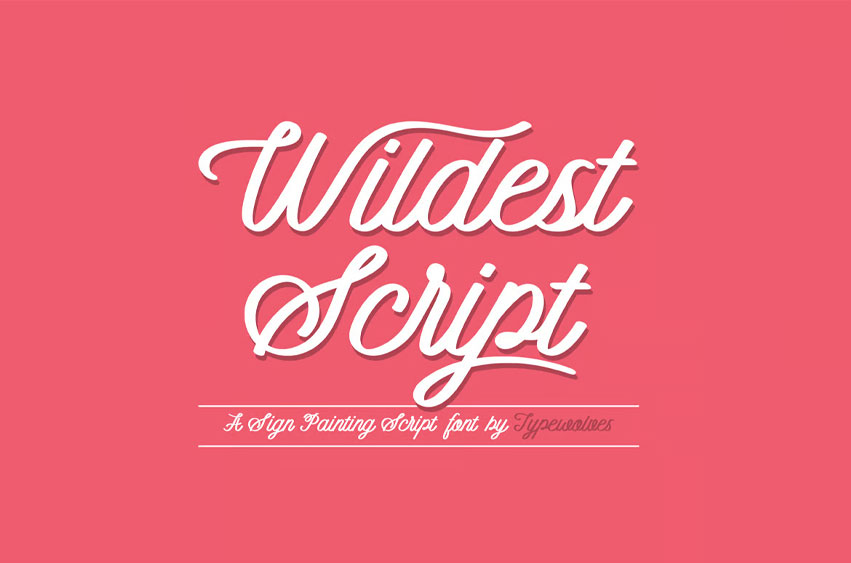
Wildest Script Font
Wildest Script Font is inspired by sign painting and script lettering. This font contains 291 glyphs in total and 108 alternative characters to improve your design. Wildest Script is perfect for logo, badge, insignia, packaging, headline, poster, t-shirt/apparel, greeting card, and wedding invitation.